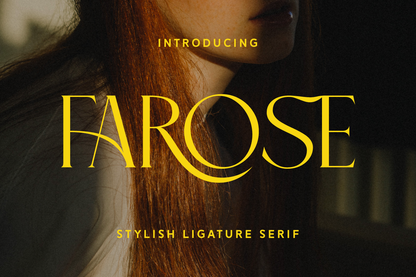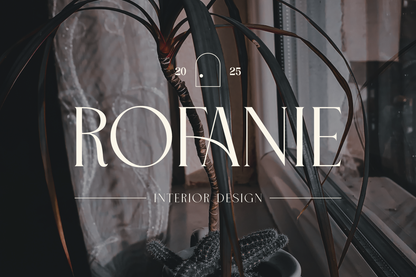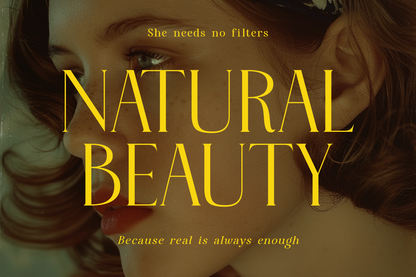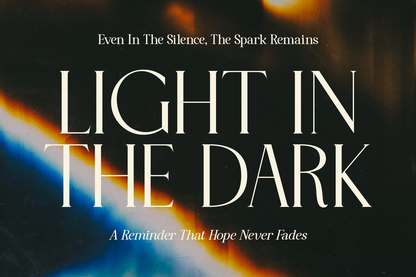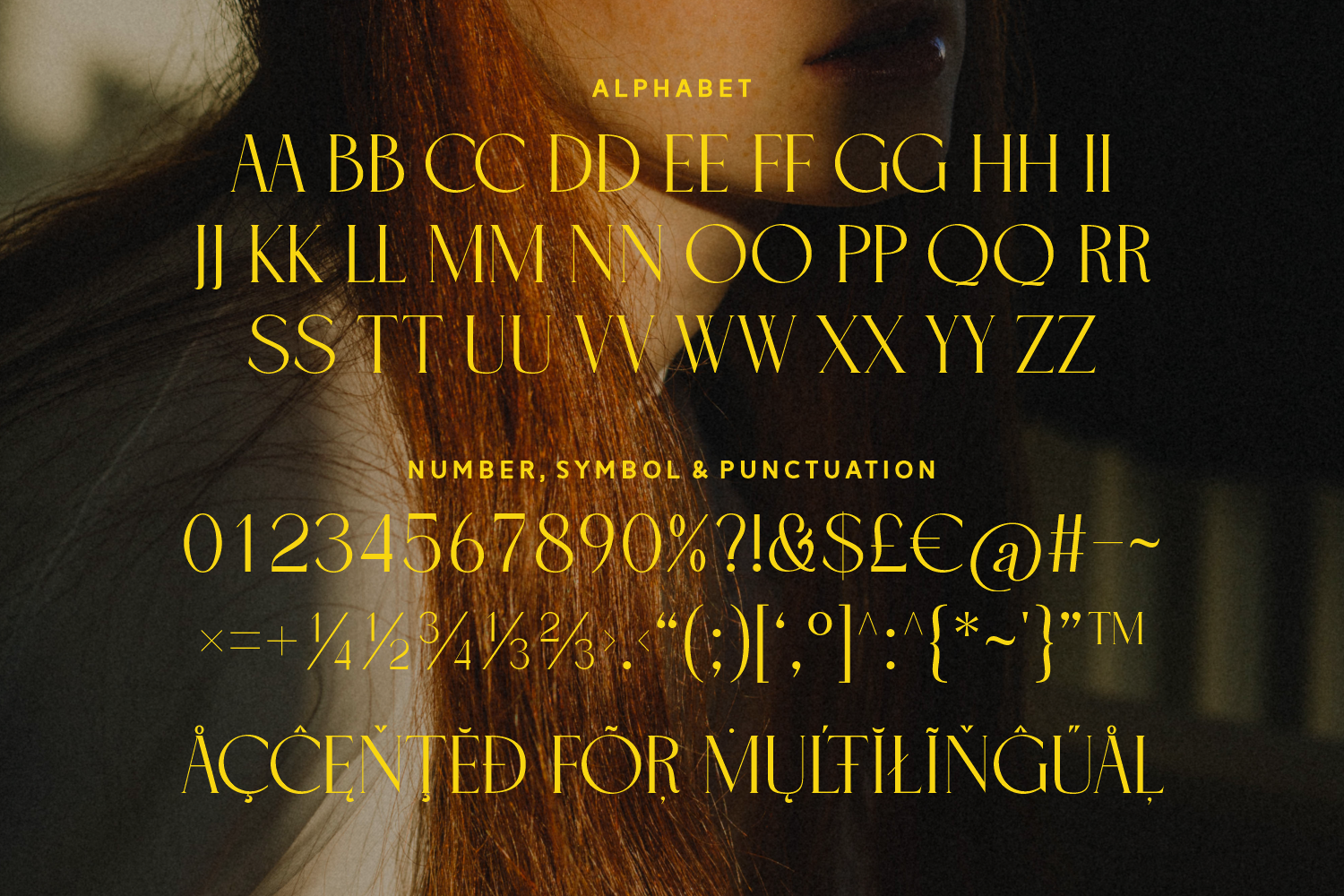
Farose is a sophisticated ligature serif font that exudes elegance and artistic flair. With its high-contrast strokes, refined curves, and unique ligature details, Farose is perfect for luxury branding, fashion editorials, wedding stationery, and high-end packaging. It combines classical serif charm with modern design elements for a timeless statement.